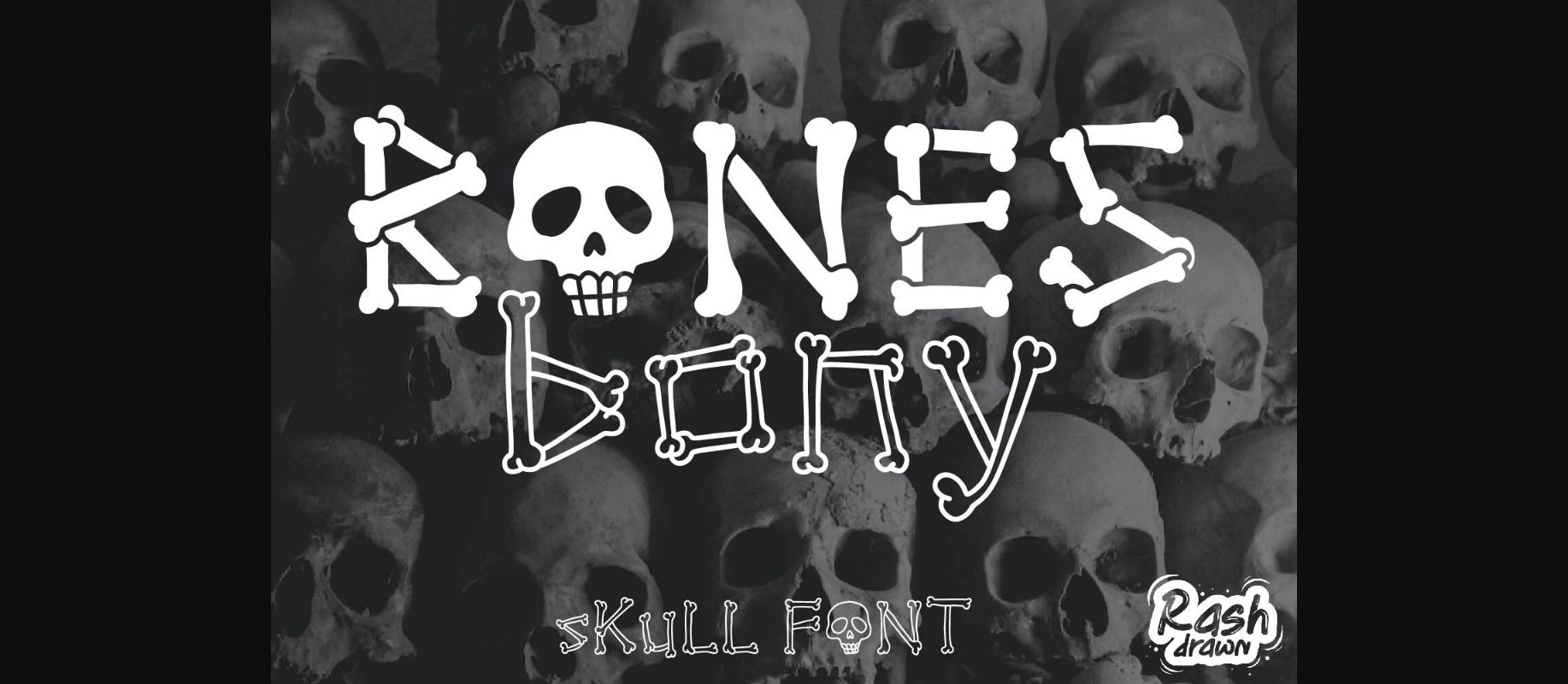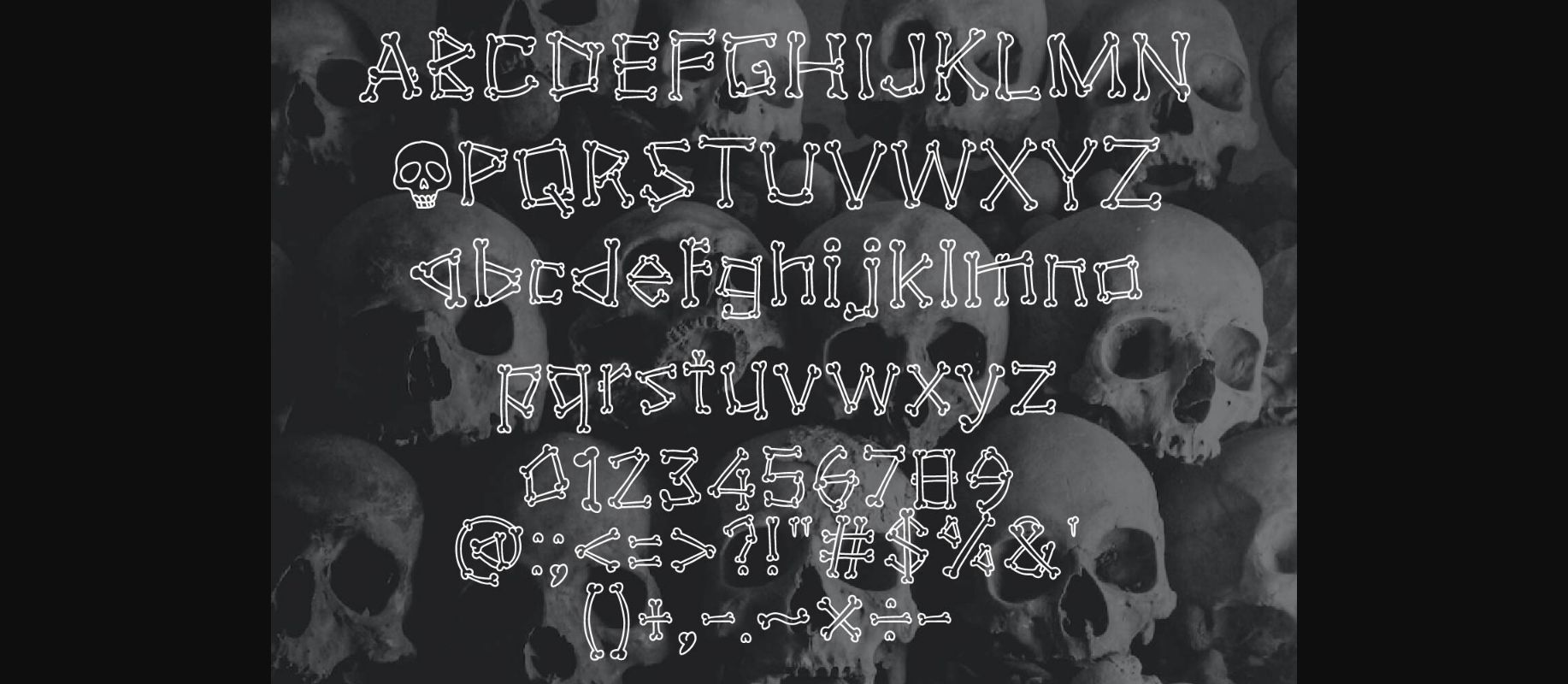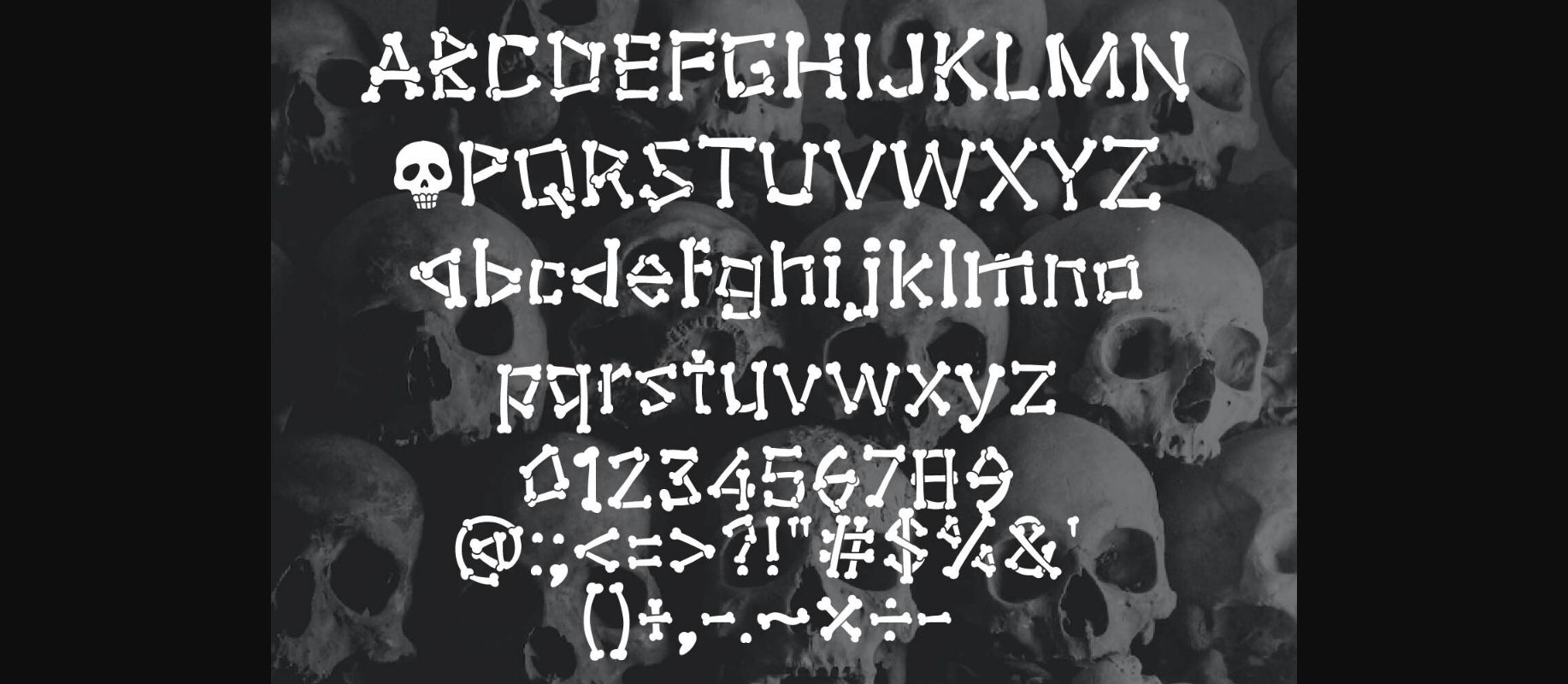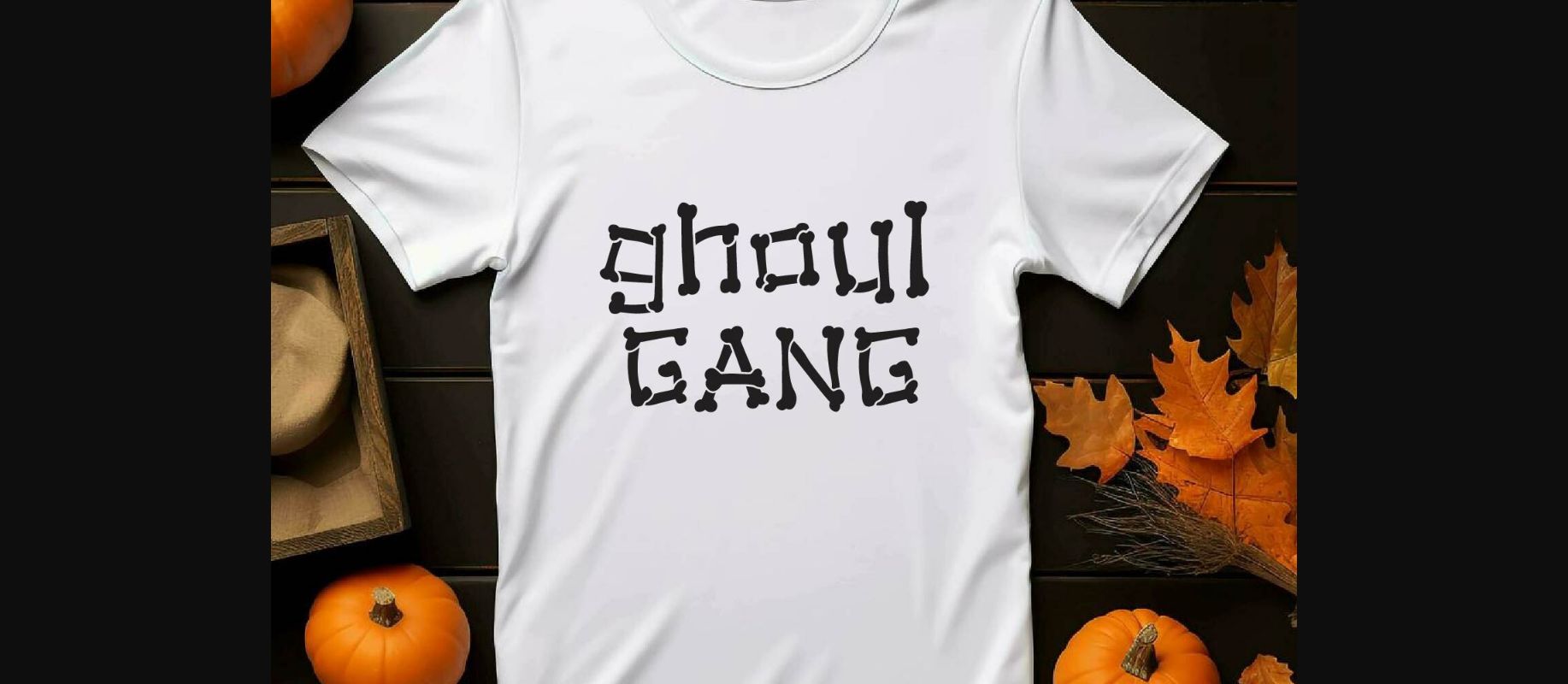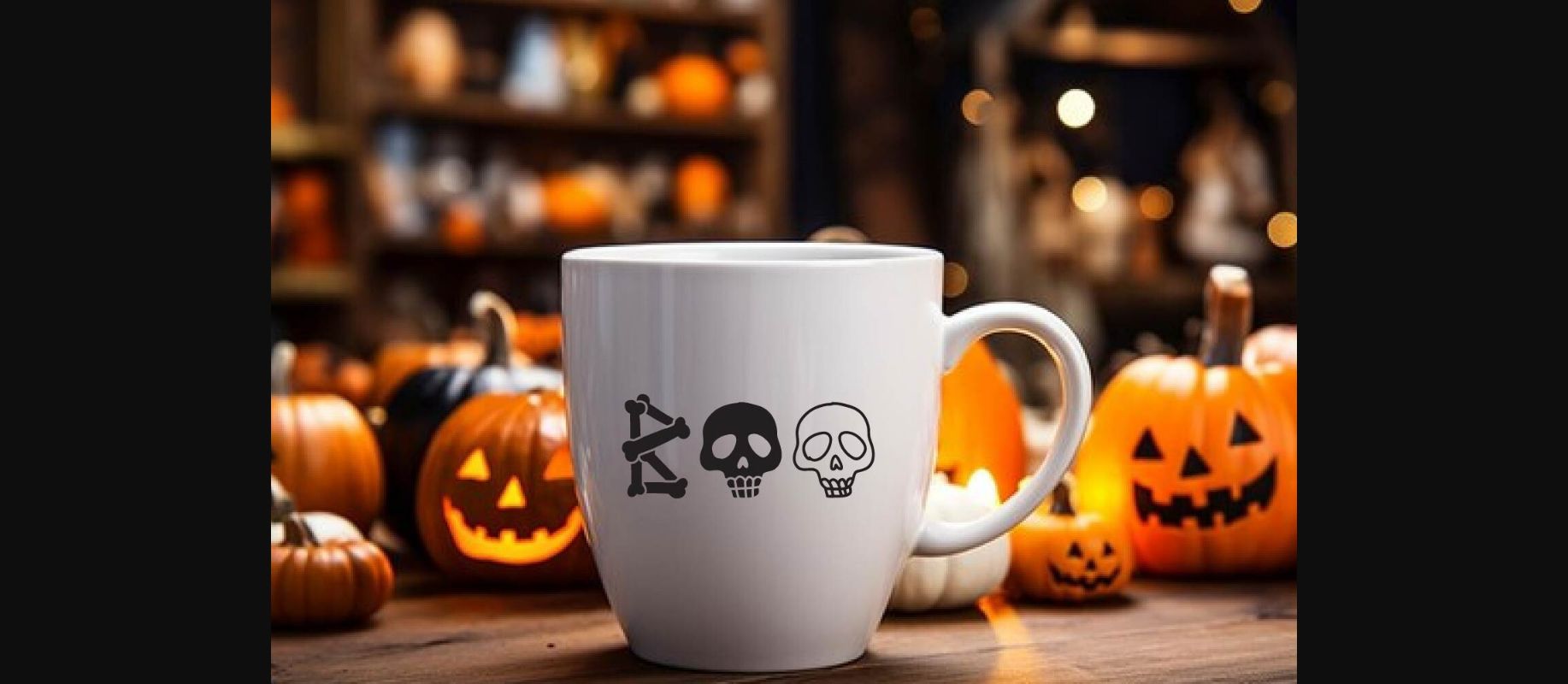
Bones Bony Font
About Bones Bony Font
Bones Bony is a decorative font that will surely bring some fun to your Halloween crafty ideas. Add it confidently to your projects and you will astounded by the outcome generated!